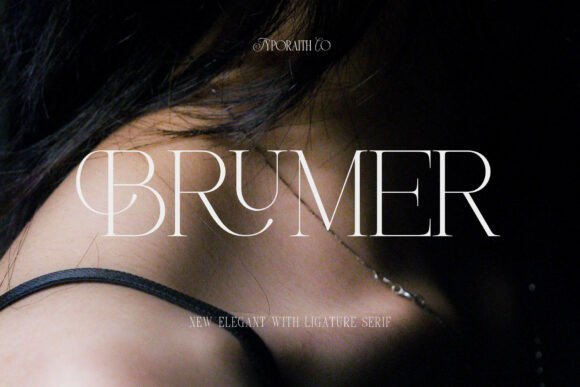
The Perfect Blend of Elegance and Sophistication
Have you ever stared at a blank page, trying to bring your creative vision to life? The cursor blinks, and your mind is flooded with ideas, but the right words to express them seem elusive. That’s when the perfect font can be the game-changer. It’s the missing piece that elevates your design from ordinary to extraordinary.
Enter Brumer Font, an exquisite serif font that combines classic sophistication with modern charm. Designed to make every word stand out, Brumer is the ideal choice for luxury branding projects, wedding invitations, editorials, product packaging, and high-end fashion logos. Its luxurious ligatures add a touch of elegance, making it a valuable asset for designers seeking to elevate their work.
Brumer Font Key Features
- Unique Characteristics: Brumer Font features a unique blend of modern and vintage elements, with distinctive letterforms and ornaments that evoke a sense of nostalgia and elegance.
Brumer Font Review
As a designer, I was excited to try out the Brumer font, and here’s my honest review.
- The Brumer font has a unique and modern aesthetic that’s perfect for contemporary designs. Its clean lines and geometric shapes make it a great choice for logos, headings, and titles.
- The font has a wide range of weights and styles, allowing for a lot of flexibility in terms of design possibilities.
- The Brumer font is highly legible, even at small font sizes, making it a great choice for body text and other large-scale designs.
- The Brumer font may not be suitable for more traditional or vintage designs, as its modern aesthetic may clash with the desired look and feel.
- The font may not be as versatile as some other fonts, as it’s primarily designed for digital use and may not translate as well to print.
Overall, I think the Brumer font is a solid choice for designers looking for a modern and versatile font. While it may have some limitations, its unique aesthetic and wide range of weights and styles make it a great addition to any design arsenal.
Practical Application Guide for Brumer Font
Tips for Getting the Most Out of Brumer Font
To get the most out of Brumer Font, try:
- Using it in combination with other fonts for a unique look.
- Experimenting with different font sizes and styles.
- Using it for headings and titles for maximum impact.
Brumer Font is commonly used for:
- Headings and titles.
- Brand identities and logos.
- Editorial and publishing content.
Alternatives to Brumer Font for Designers
Merriweather is a classic serif font that is highly legible and elegant. It is suitable for body text, especially in print materials such as books, magazines, and newspapers. When to use: For formal documents, academic papers, and publications where a traditional look is desired.
Comparison to Brumer Font: While Brumer Font is also a serif font, Merriweather is more classic and traditional in its design. Merriweather has a more subtle and refined feel, making it a better choice for formal documents, whereas Brumer Font is more modern and versatile.
Lato is a modern sans-serif font that is highly legible and versatile. It is suitable for body text, especially in digital materials such as websites, apps, and social media. When to use: For digital interfaces, marketing materials, and websites where a clean and modern look is desired.